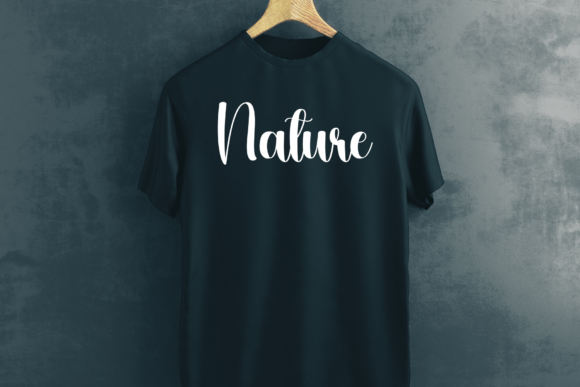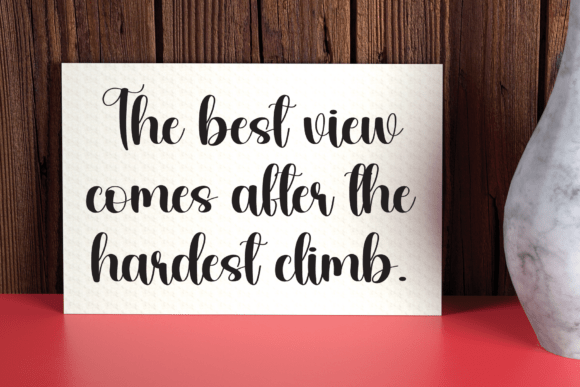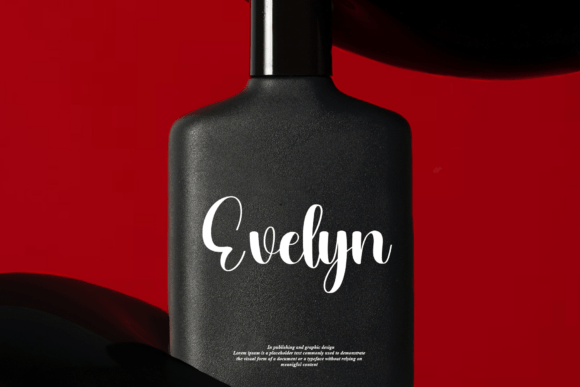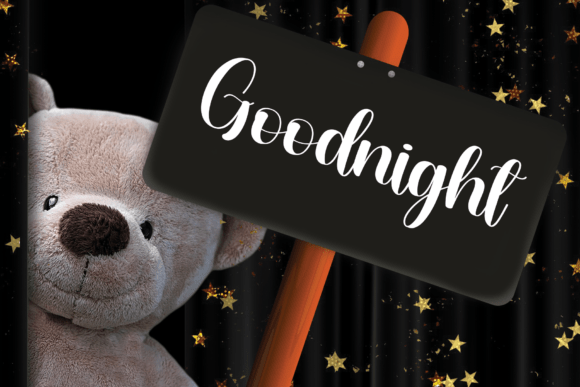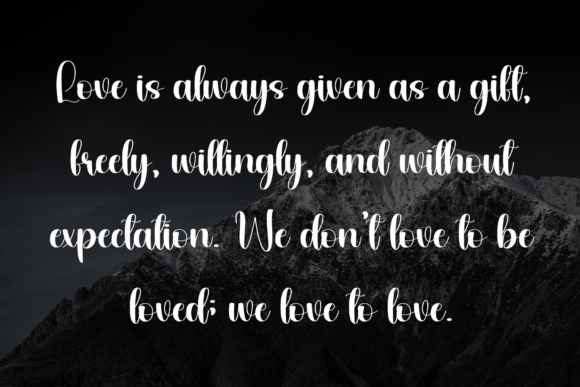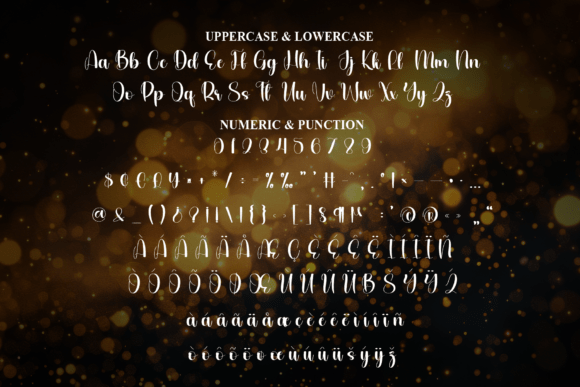
Introducing Blinky Font, a charmingly authentic handwritten display font that brings warmth and congeniality to any design. Its splendidly cute and vibrant aesthetic is perfect for wedding invitations, greeting cards, and any project that needs a dash of fun-loving spirit. For designers, Blinky Font is a valuable addition to their toolkit, offering a unique blend of elegance and playfulness that can elevate any creative endeavor.
Blinky Font Key Features
- Character Set: This font includes a comprehensive set of characters, including uppercase and lowercase letters, numbers, punctuation marks, and special symbols, making it suitable for various typesetting needs.
- Unique Characteristics: The font’s distinctive blinking effect is achieved through the use of carefully designed characters that create a mesmerizing visual effect, perfect for adding a touch of whimsy to designs.
- Legibility: Despite its unique characteristics, Blinky Font remains highly legible, making it suitable for use in a variety of contexts, from body text to headings.
- Customization: The font’s design allows for easy customization, enabling users to adjust the blinking effect to suit their specific needs and preferences.
Blinky Font Review
Overall, I have mixed feelings about the Blinky Font. While it’s a unique and creative font, it’s not without its limitations.
- Unique and playful design: The Blinky Font is a great choice for anyone looking to add a touch of whimsy to their project.
- Highly customizable: The font’s creator has provided a range of options for adjusting the font’s appearance, making it easy to tailor to your needs.
- Wide character set: The font includes a comprehensive set of characters, including punctuation and symbols.
- Limited legibility: At small font sizes, the Blinky Font can be difficult to read, making it less suitable for body text.
- Not suitable for formal projects: The font’s playful nature makes it better suited for creative or informal projects, rather than formal or professional ones.
Overall, I would recommend the Blinky Font for projects where you want to add a touch of personality and creativity. However, it may not be the best choice for projects that require clear, readable text.
The Blinky Font is a great choice for:
- Adding a playful touch to your designs.
- Creating eye-catching headlines and titles.
- Designing for children’s products or educational materials.
Remember to use the font in moderation to avoid overwhelming your design.